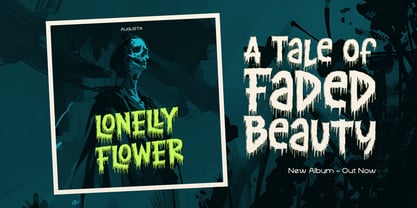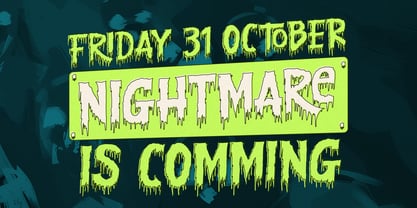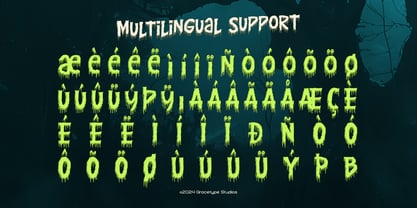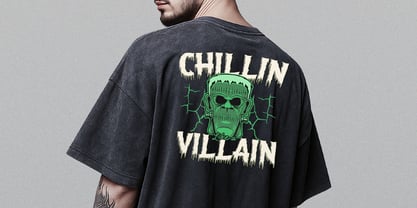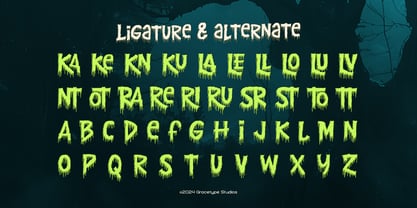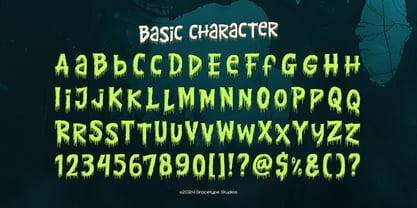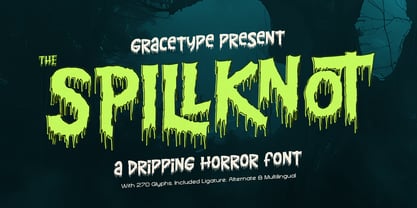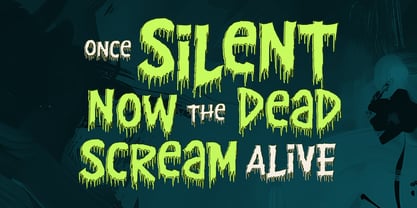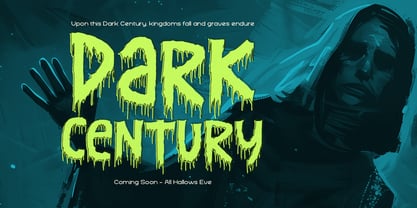
Spillknot
by Tini Fitriani
The Spillknot Font Family was designed by and published by Tini Fitriani. Spillknot contains 1 styles. More about this family
Spillknot | Dripping Horror Font, from Gracetypestudio, suitable for any projects such as: logos, branding projects, homeware designs, product packaging, mugs, quotes, posters, shopping bags, t-shirts, book covers, name card, invitation cards, greeting cards, label, photography, watermark, special events, and all your other lovely projects that need a Horror taste.